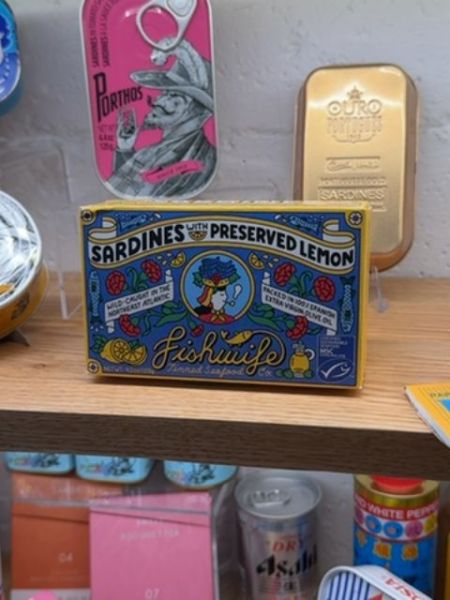
Fishwife
Sardines with preserved lemon, offering a flavorful seafood experience.
The typography on the packaging is eclectic and playful, featuring a mix of bold, vintage-style fonts that contribute to its artisanal aesthetic. The use of mixed-case lettering and decorative serifs adds personality and draws attention, while the hand-drawn style of the brand name 'Fishwife' reinforces the handcrafted feel.
The packaging is vibrant and eye-catching, featuring detailed illustrations and bold colors that evoke a sense of artisanal craftsmanship. The combination of imagery and text gives it a vintage, handcrafted feel, enhancing the product's gourmet appeal.
- Fishwife packaging often features artistic designs.